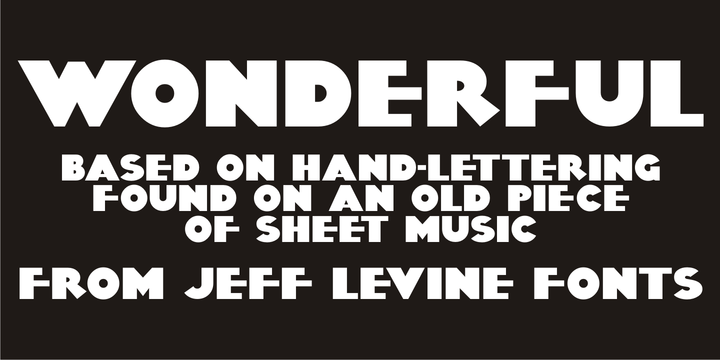
Wonderful JNL
by Jeff Levine
A little bit of thick-and-thin Art Deco hand lettering is offered up in Wonderful JNL, based on some promotional text found on an old piece of sheet music.